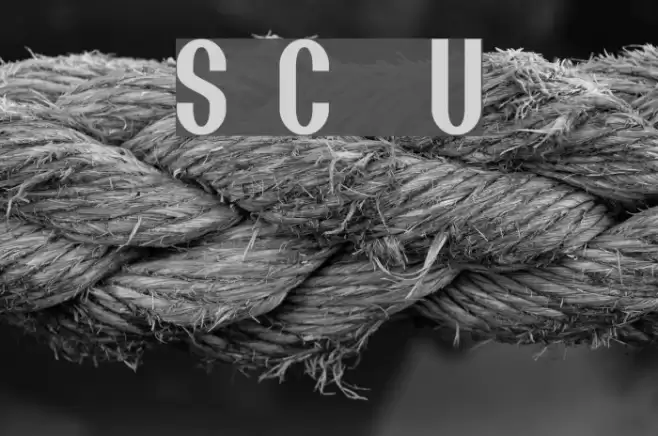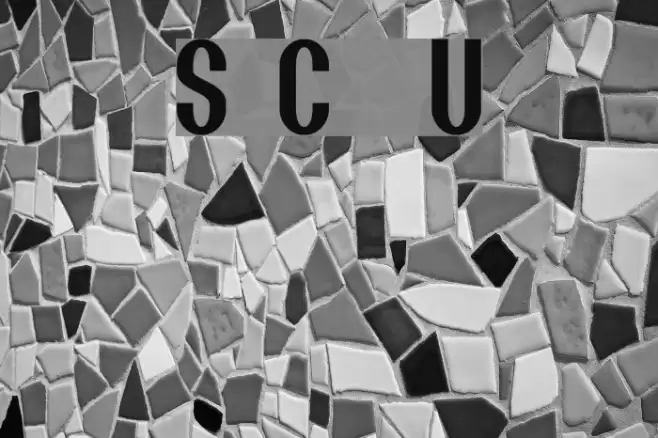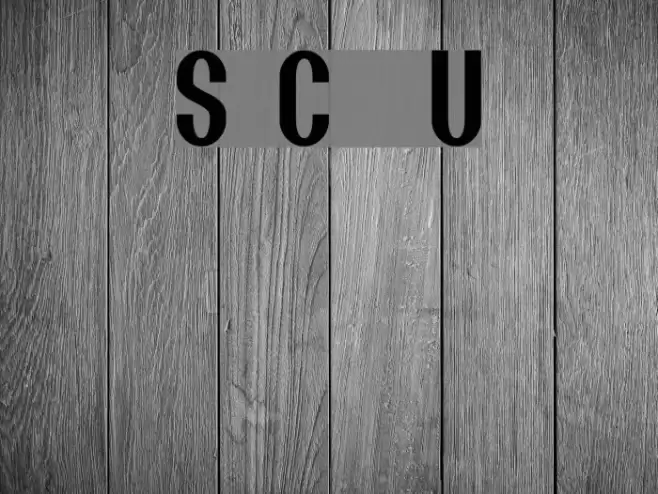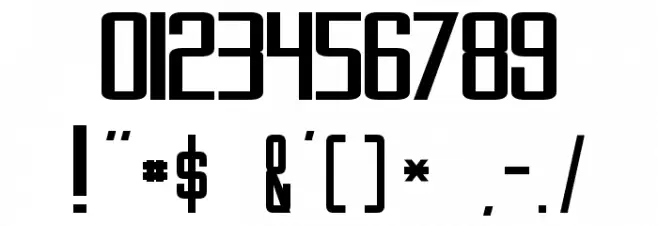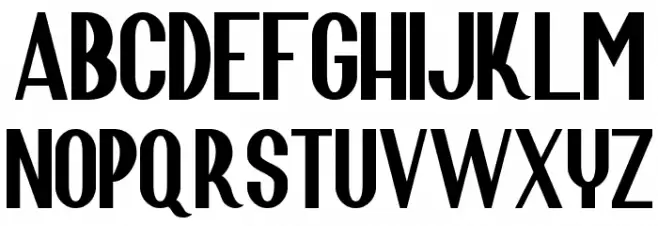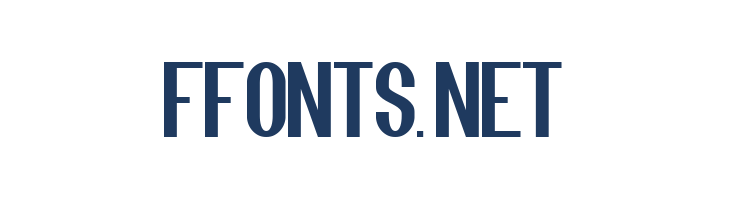
Scara Conquers the Universe Font
Scara Conquers the Universe Description
This font features a bold and striking design with a strong geometric structure. The uppercase letters are tall and narrow, with a consistent stroke width that gives a modern and assertive appearance. The lowercase letters maintain the same boldness, ensuring readability while adding a touch of elegance. Numbers are equally bold, matching the overall style of the alphabet. Special characters are designed to complement the letters, maintaining the font's cohesive look. The font's style is suitable for making a strong visual impact, ideal for headlines or branding projects.
A bold, geometric font with a modern and assertive style from Retro fonts.